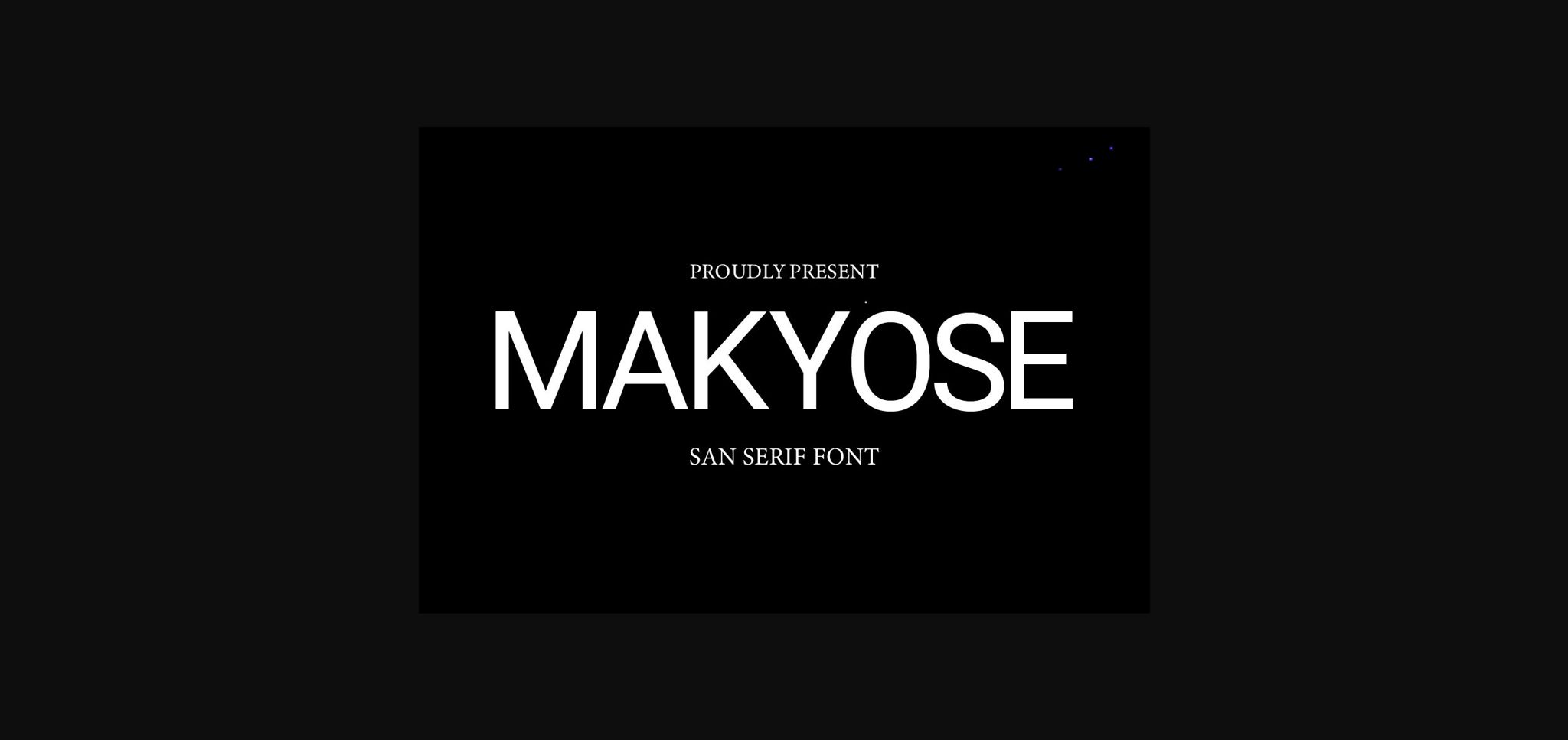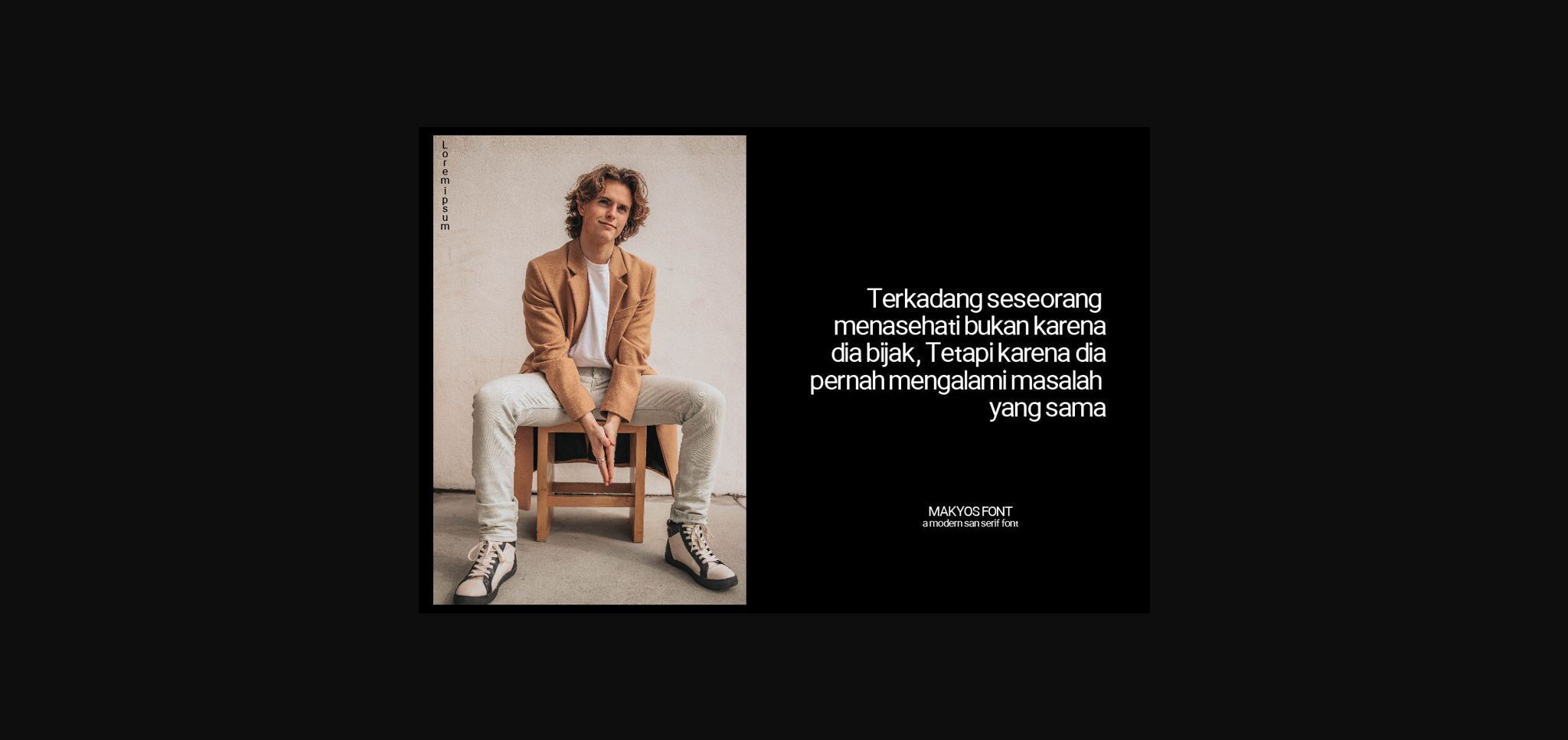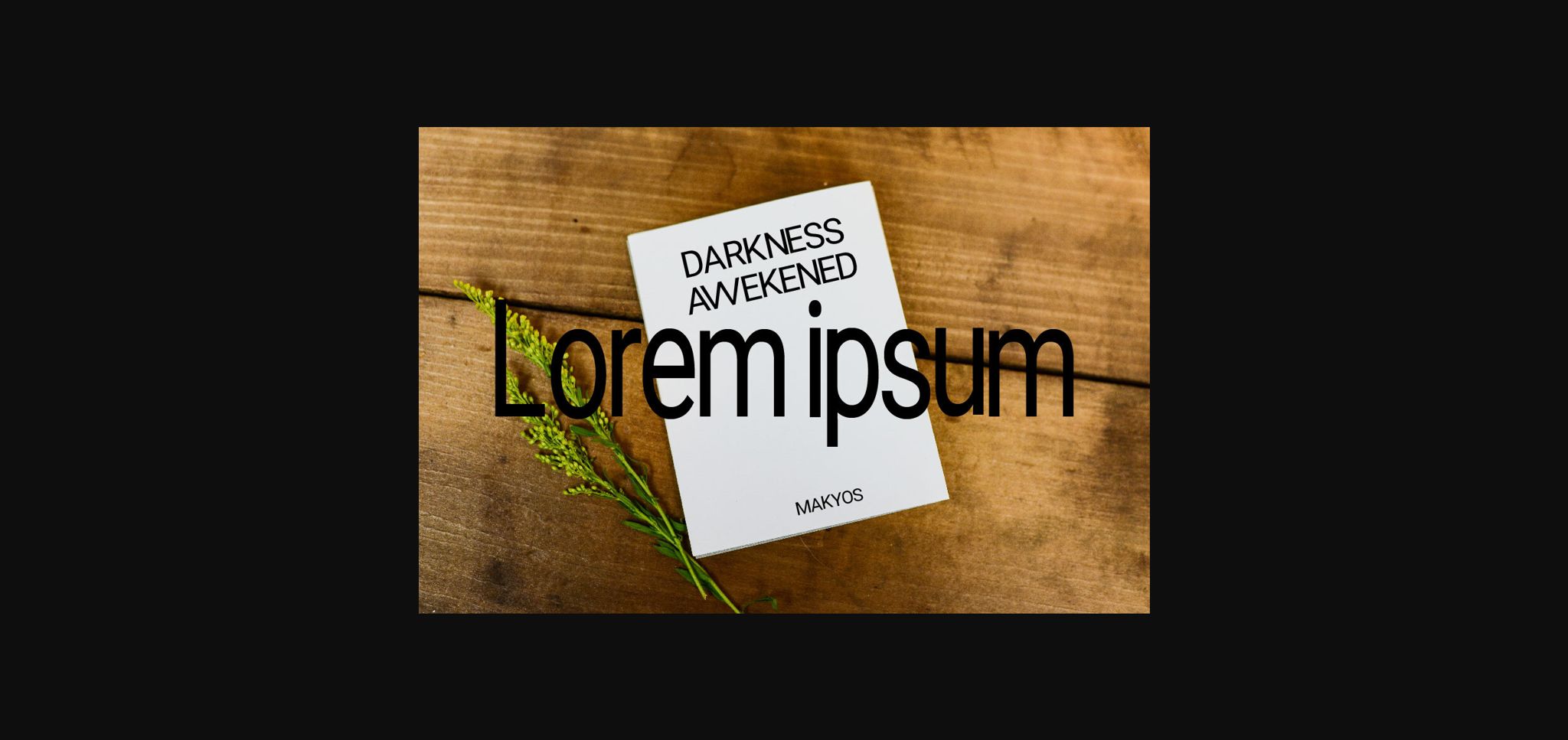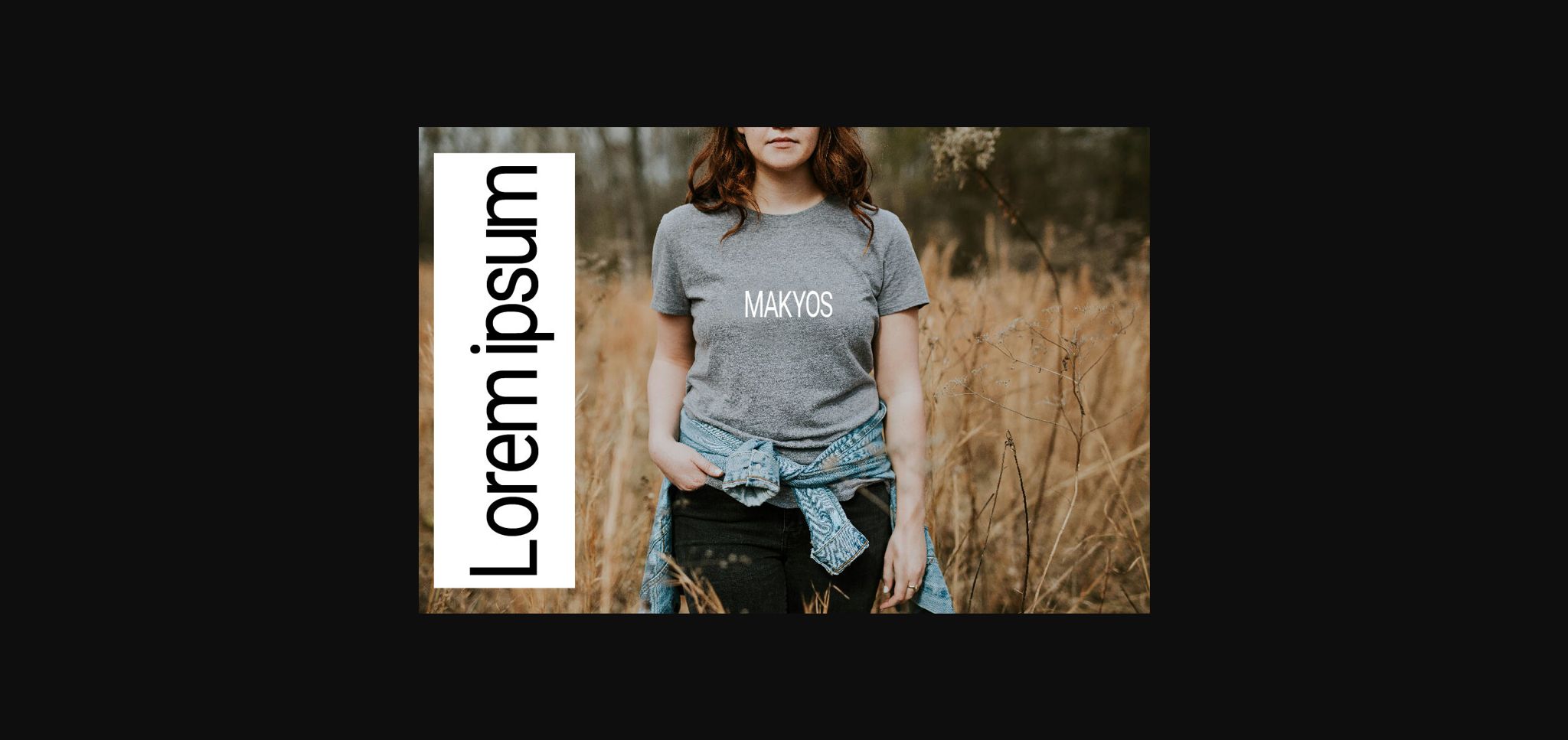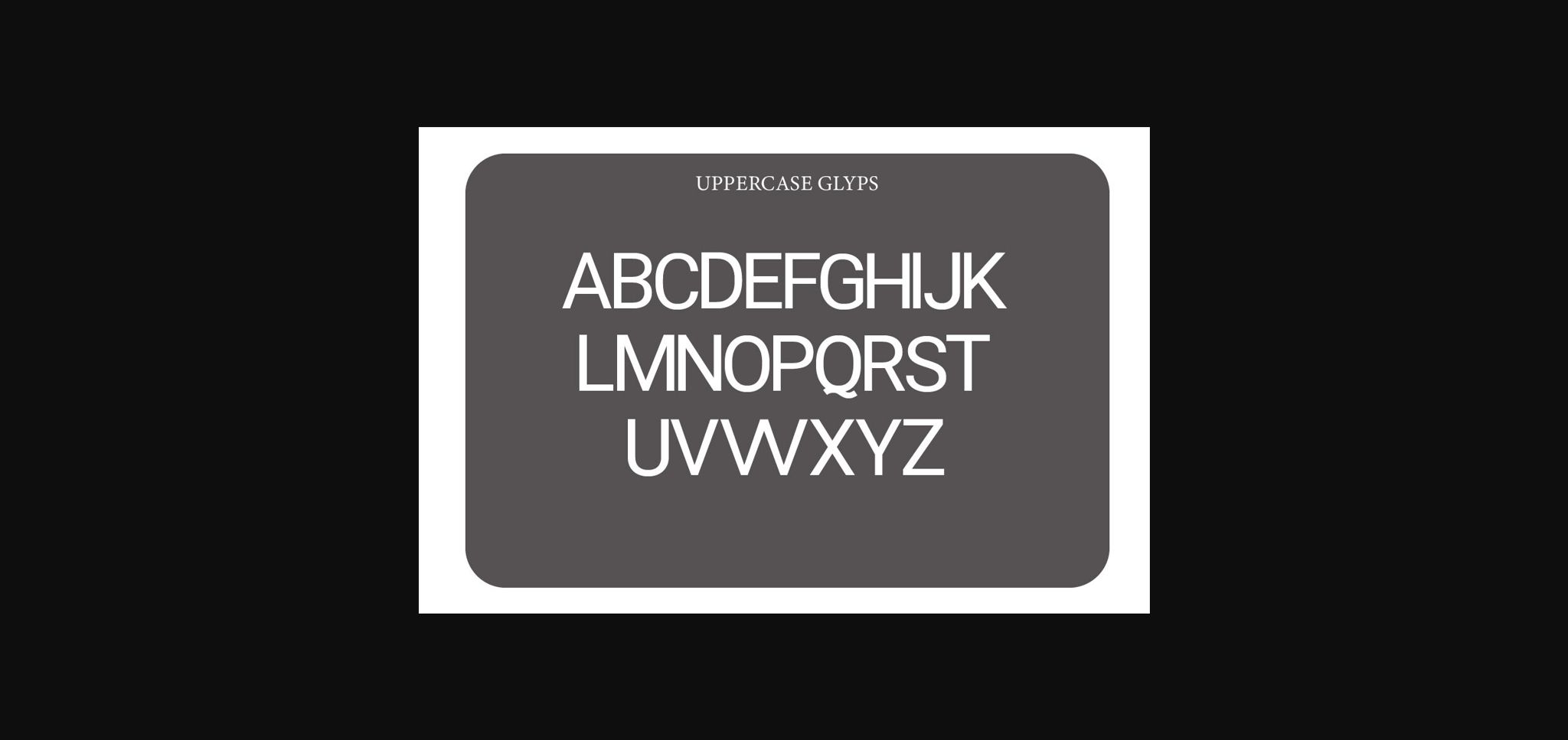
Makyose Font
About Makyose Font
Introduction Makyose font. Makyose is a modern and simple sans serif font, best used as a display for headings, logos, branding, magazines, product packaging, and invitations. Makyose comes with clean lines and smooth curves giving any project an extra touch of class.